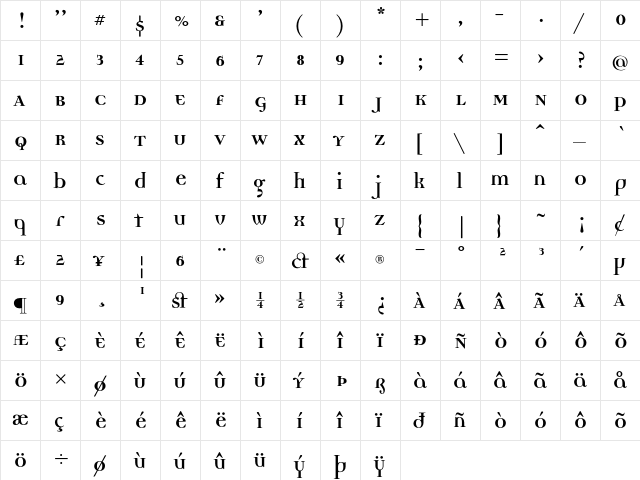
DemocraticaBoldLining Medium
| Foundry | Emigre Graphics, Designed by Miles Newlyn in |
Design Context for DemocraticaBoldLining Typeface
DemocraticaBoldLining is a composed and adaptable typeface that performs quietly and consistently across a wide range of design contexts. Its bold stroke weight gives it real presence on the page.